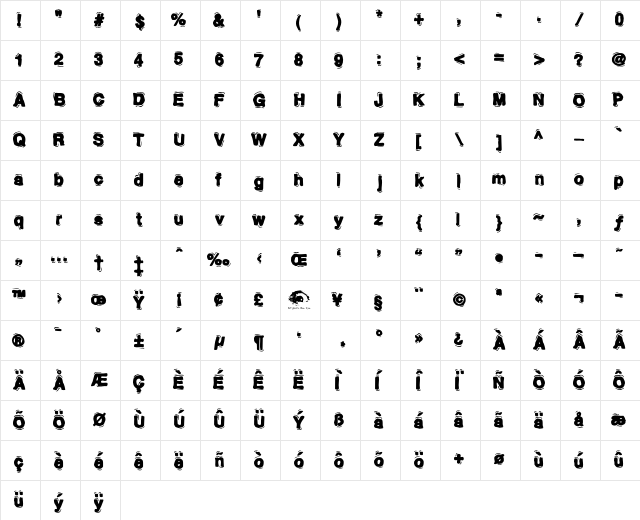
MotherlodeLoadedAOE Regular
Design Context for MotherlodeLoadedAOE Typeface
MotherlodeLoadedAOE is a composed and adaptable typeface that performs quietly and consistently across a wide range of design contexts.